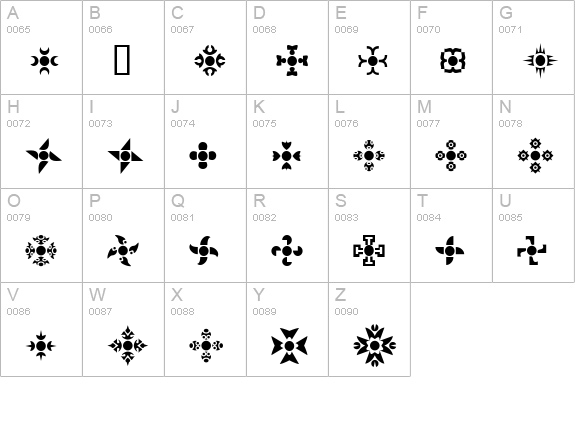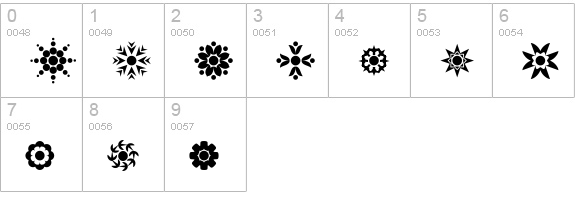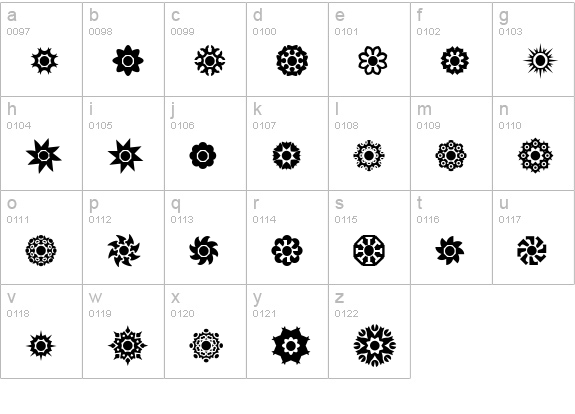
Cirkledingz Font Details
Introducing Cirkledingz font, a whimsical and playful typeface that brings a touch of charm to any design project. This unique font features circular shapes and flowing lines, creating a delightful and eye-catching aesthetic. Perfect for adding a fun and lighthearted feel to your designs, Cirkledingz is sure to stand out and make a statement. The best part? Cirkledingz font is completely free to download at FontsMarket.com. Now you can easily incorporate this charming font into your projects without any cost. Whether you're working on invitations, posters, branding materials, or any other creative project, Cirkledingz font is a versatile choice that will add a touch of personality and creativity. Download it today and unleash your creativity with this free and delightful font.